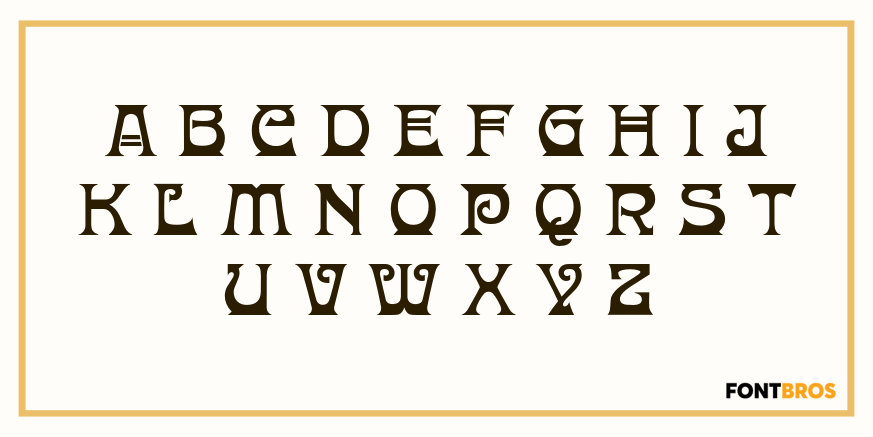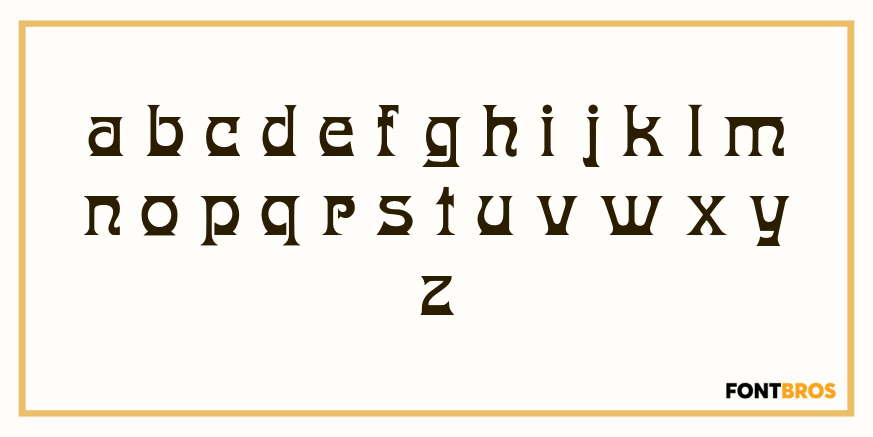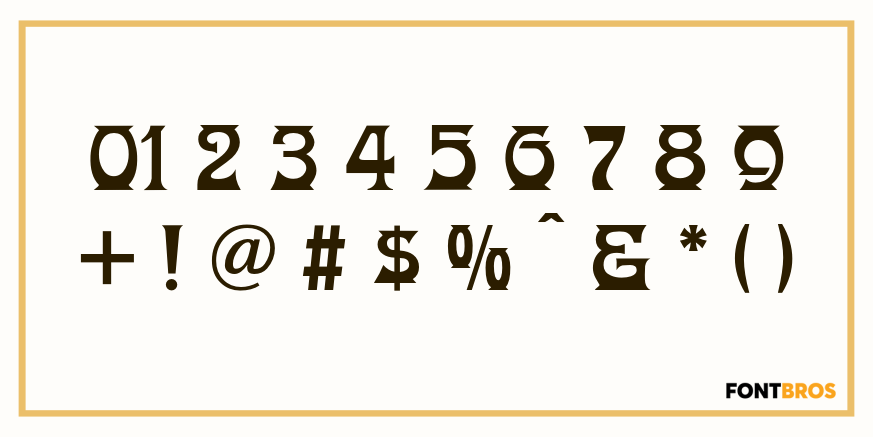
Donaldina
Font Family by Solotype
This came from an early-1900s lettering book.
Never was an actual font, but it has a quaint look that should be useful. We hate to see alphabets just fade away, which is why we make fonts like this.
We added a few touches.